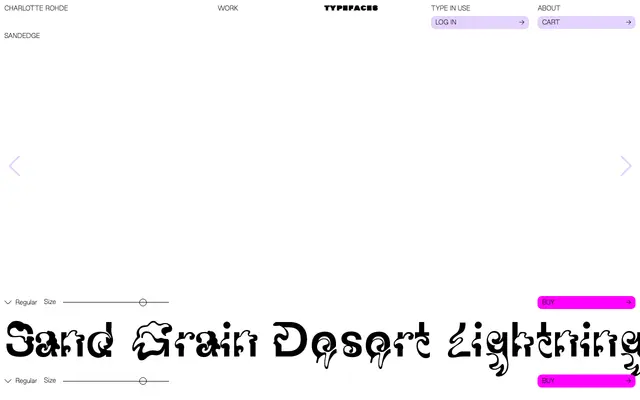
SandEdge
A single-weight display typeface from Charlotte Rohde with extensive glyph alternates across two stylistic sets, covering Western European Latin languages.
SandEdge comes in one weight and offers a broad set of alternate glyphs accessible via Access All Alternates, Stylistic Set 1 and Stylistic Set 2, giving designers considerable variation within a single style. Coverage spans English, German, Spanish, French and Dutch, with Latin Extended-A characters included. The name and specimen language suggest a typeface oriented towards editorial and branding contexts where textural personality is wanted.
A single-weight display face with a name evoking texture and natural forms; its glyph alternates and stylistic sets suggest an expressive, hand-influenced character rather than any functional text category.